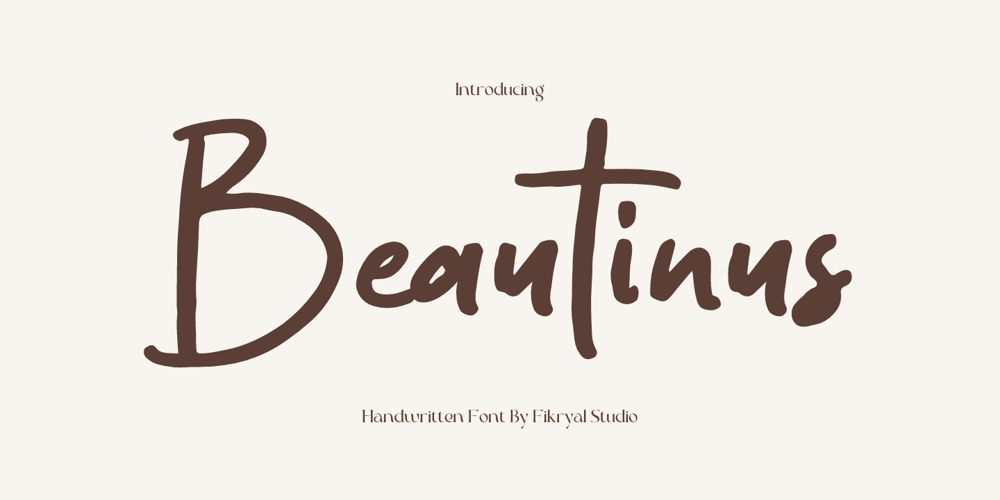
Beautinus Font Family was designed by Muhammad Fikry and published by Fikryal. Beautinus contains 1 styles and family package options. Beautinus Handwritten Script Font is a beautiful and exclusive typeface, designed specifically to add an elegant and feminine touch to your graphic designs. With its soft and classy handwritten appearance, this font exudes a romantic and artistic atmosphere.With its smooth-flowing characters, Beautinus Handwritten Script Font is perfect for various design projects such as logos, branding, greeting cards, wedding invitations, digital products, and more. Its uniqueness and elegance make it ideal for conveying messages of gentleness, beauty, and warmth in every design work.When you use Beautinus Handwritten Script Font, you will feel a personal and unique touch in every word and sentence you write. With the ability to adjust letter size and style, this font provides perfect flexibility to customize your designs according to your needs.Enhance your creativity with Beautinus Handwritten Script Font and let every word become a beautiful painting that portrays uniqueness, gentleness, and distinctive personality.If you have any questions please don’t hesitate to contact me.Features :Thank youbest regards,Fikryal Studio